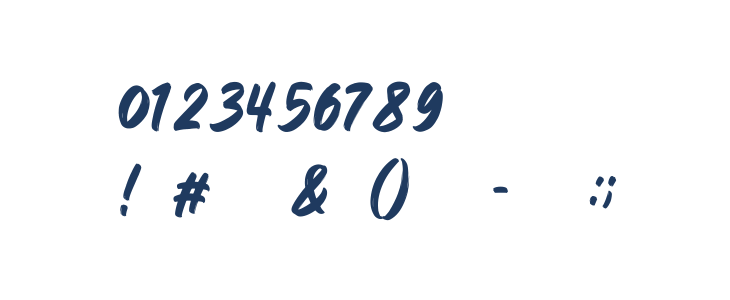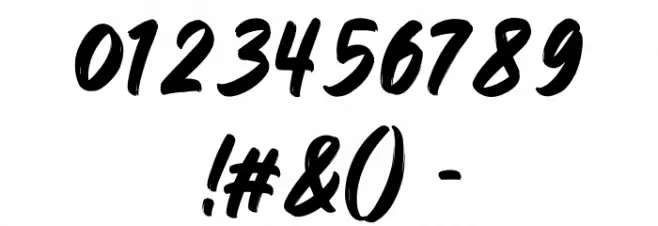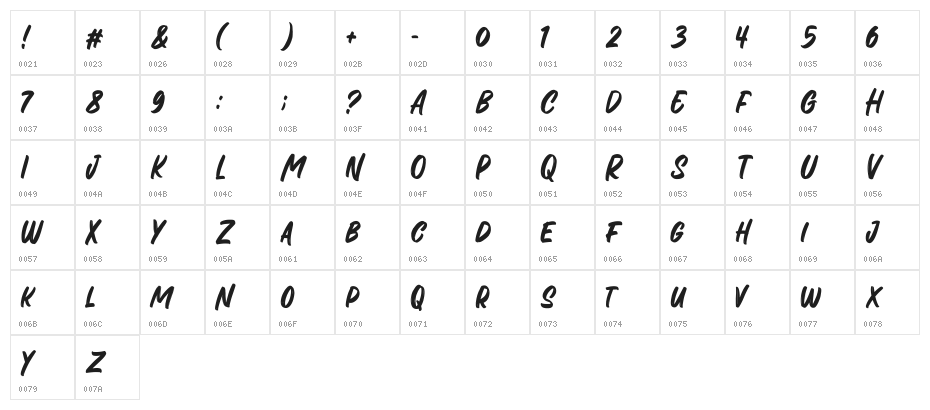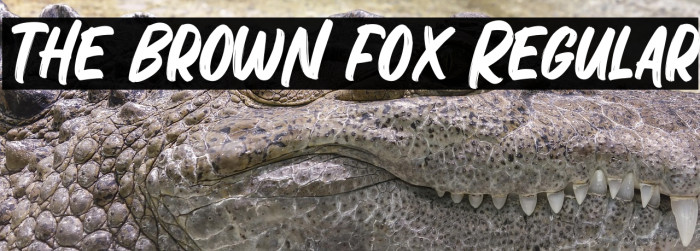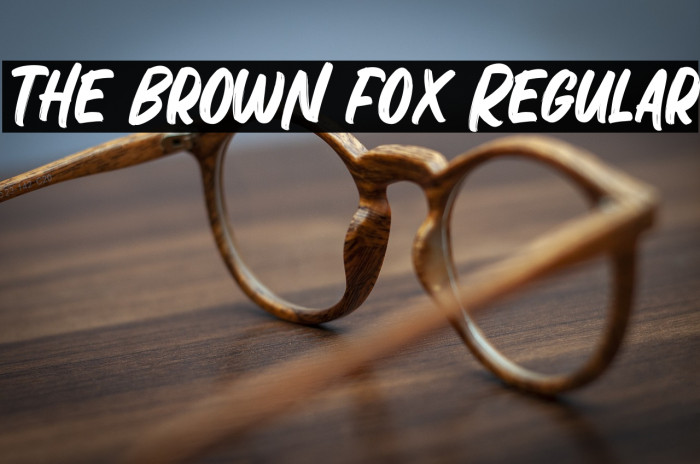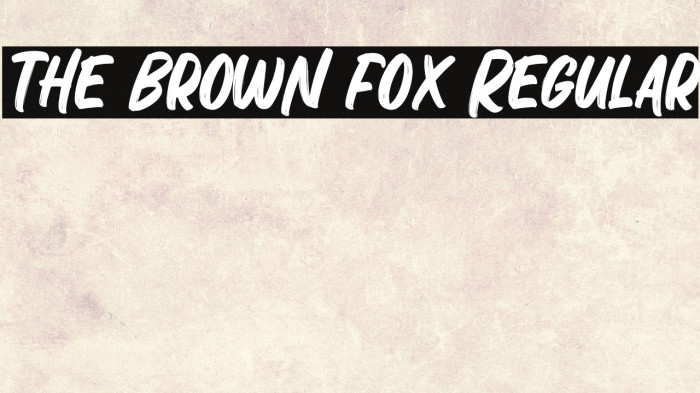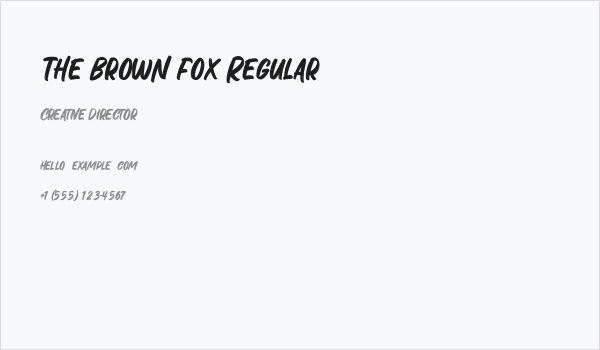
The Brown Fox Regular Font
The Brown Fox Regular Description
This font exudes a bold and energetic style, characterized by its brush-like strokes and dynamic flow. The letters are crafted with a sense of movement, giving them a lively and expressive appearance. The uppercase and lowercase letters maintain a consistent style, with slightly varying thickness that adds to the font's handcrafted feel. The numbers and special characters are equally bold, ensuring a cohesive look across all text elements. This font is perfect for projects that require a personal touch, such as invitations, posters, or branding materials that aim to convey creativity and enthusiasm.